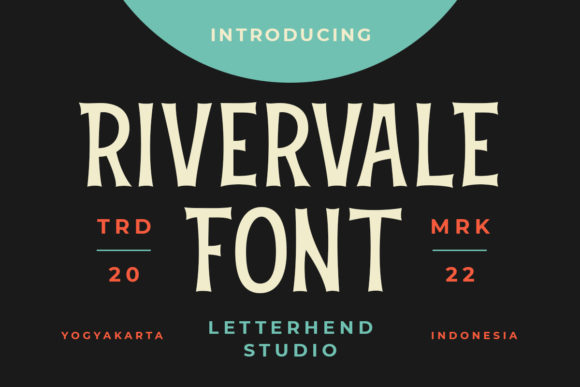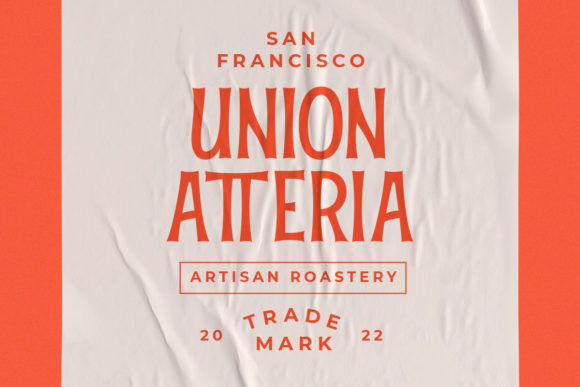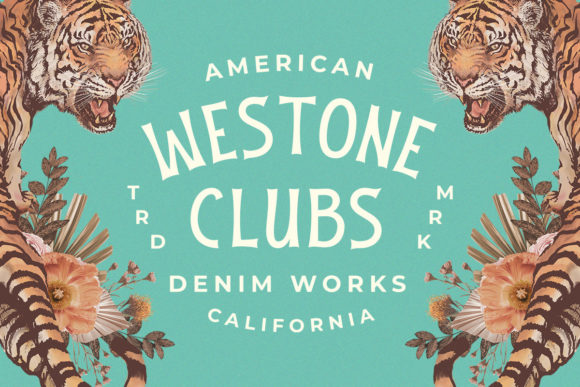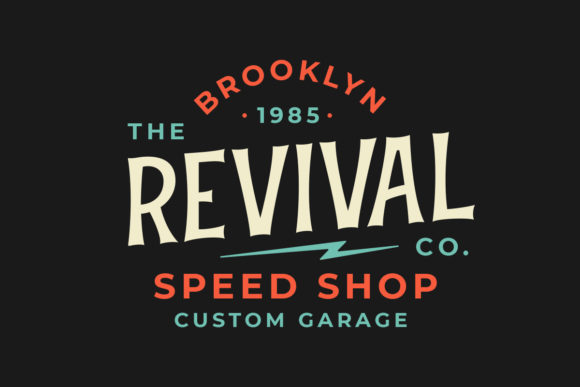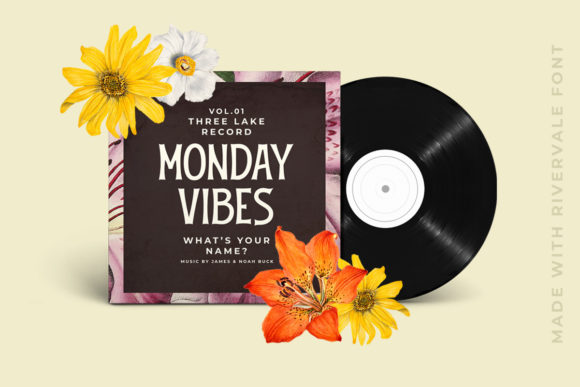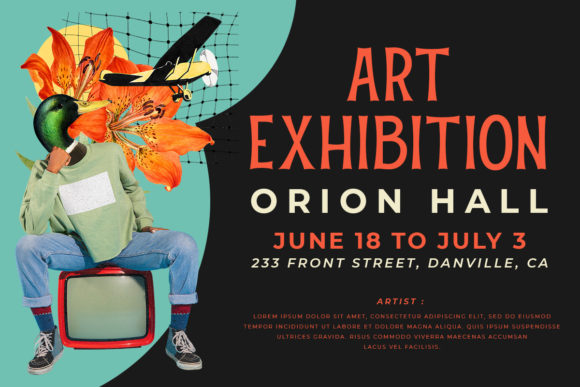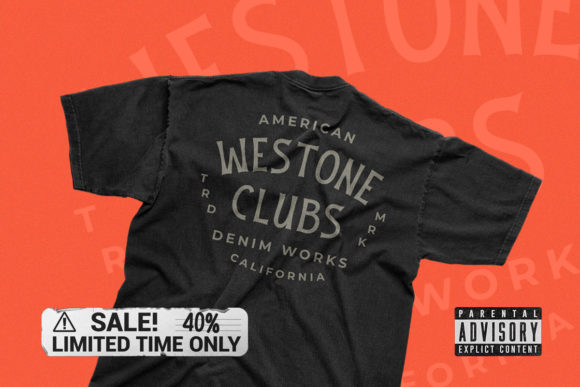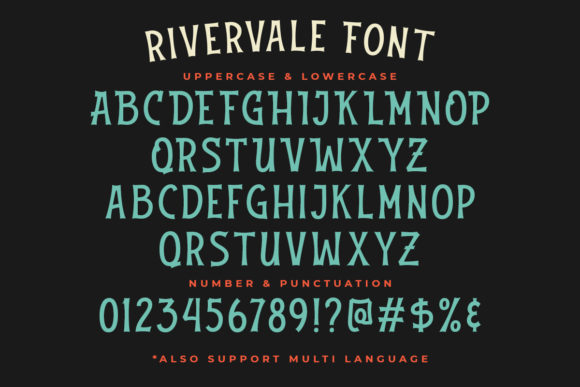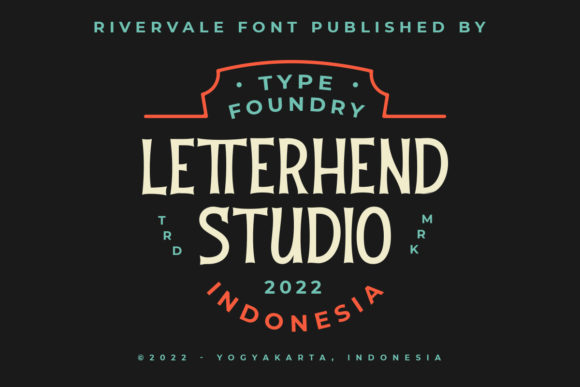
Rivervale font is a typeface that is inspired by vintage lettering signs and art. Very suitable for the headline, logotype, apparel, invitation, branding, packaging, advertising, etc with old school/vintage as well as modern theme. It comes in uppercase, lowercase, punctuations, symbols & numerals, stylistic set alternate, ligatures, etc also supports multilingual and already PUA encoded.
Rivervale Font